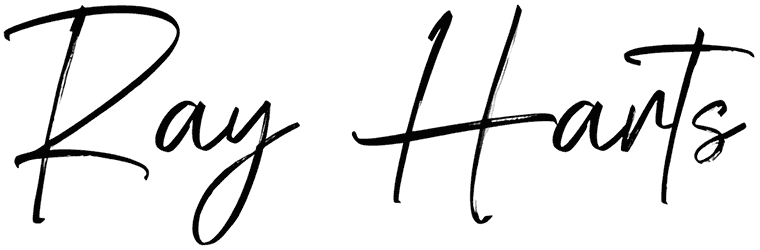
Ray Harts Font
Would you like to have a modern and chic style for your context in your upcoming design? As a calligraphy font, Ray Harts represents casual brush lettering that can be a salient showcase for many designs and subjects. Even without numbers and punctuation marks, this brush font would serve as a perfect item for varied projects, namely postcards, invitations, apparel, and along with others.